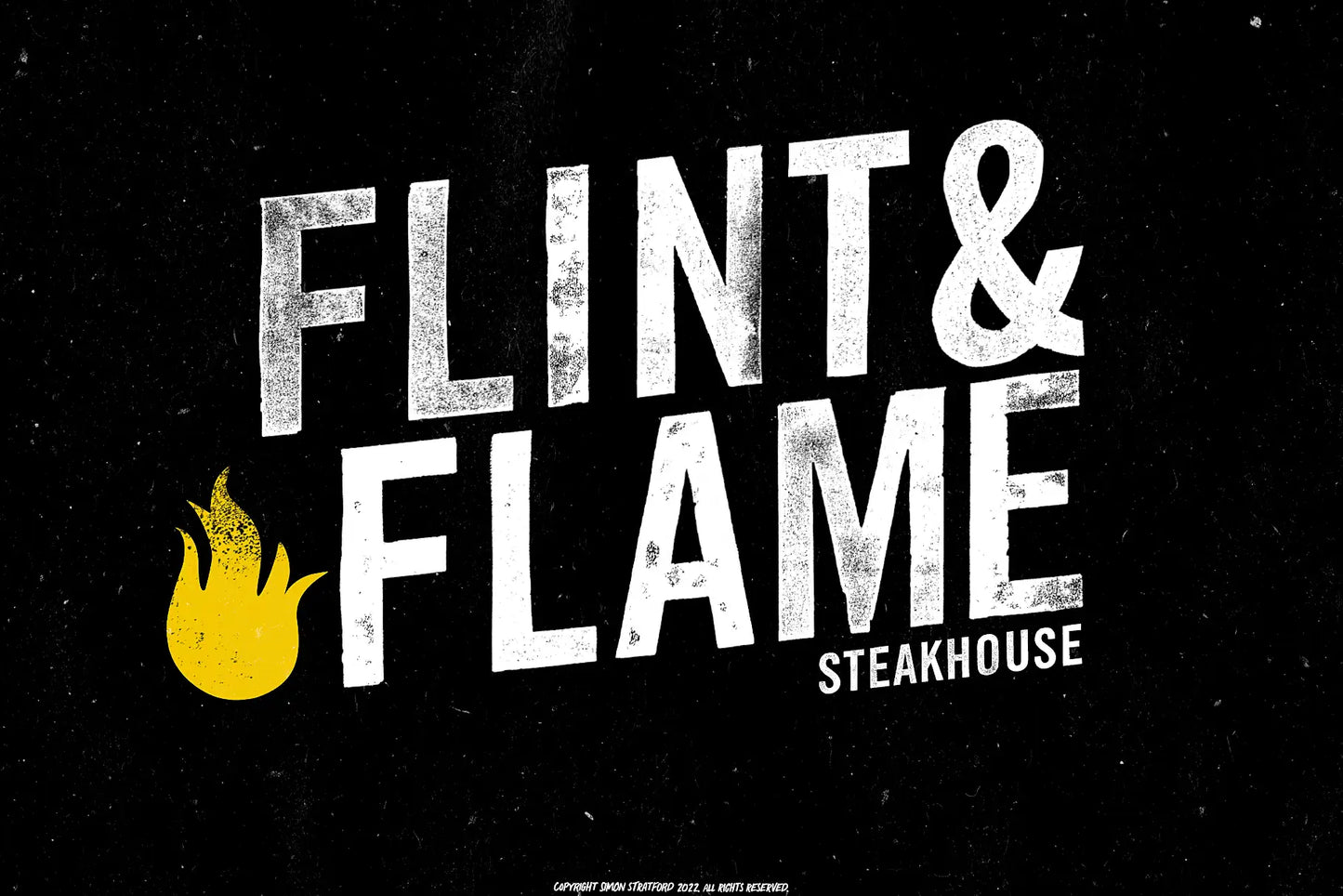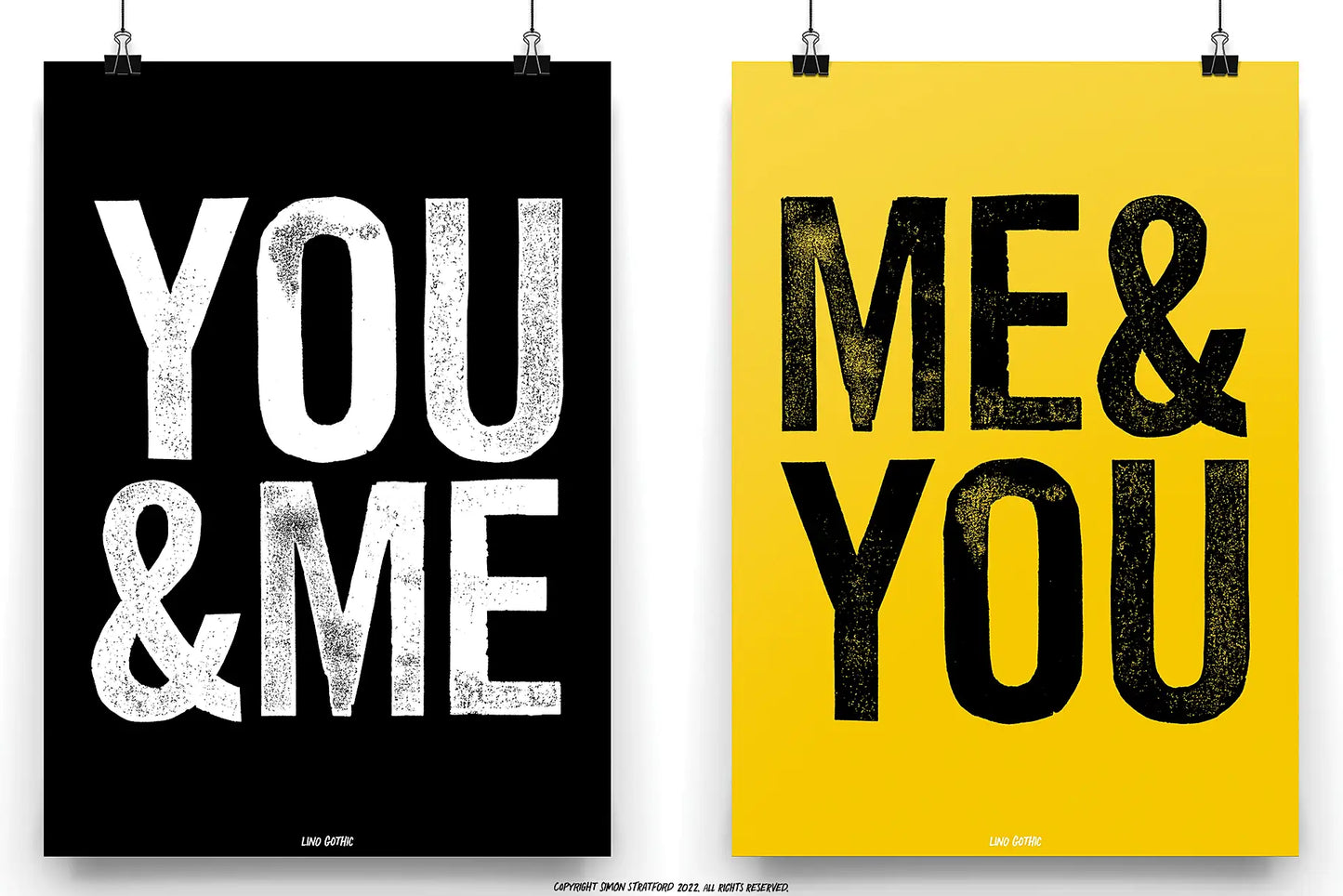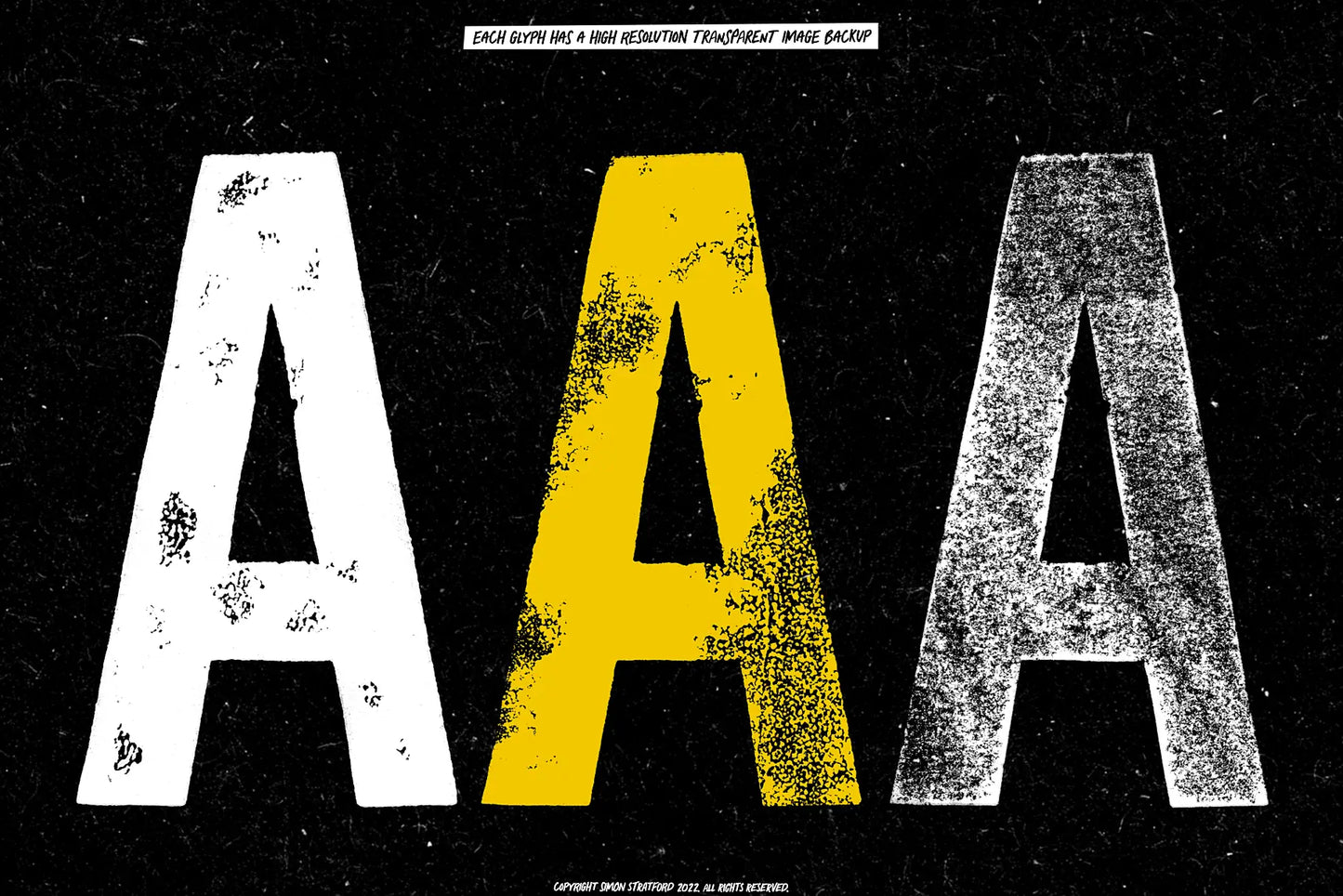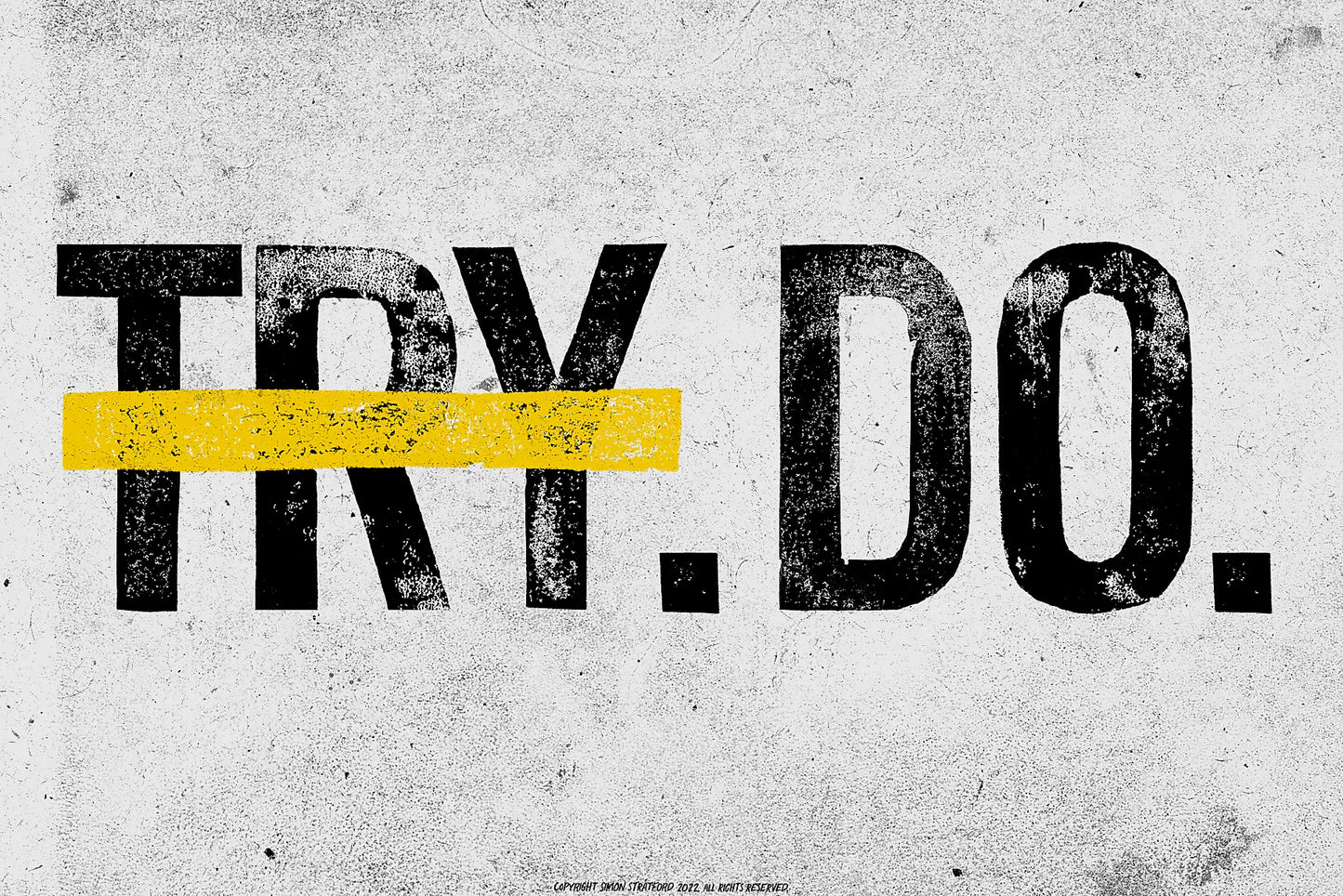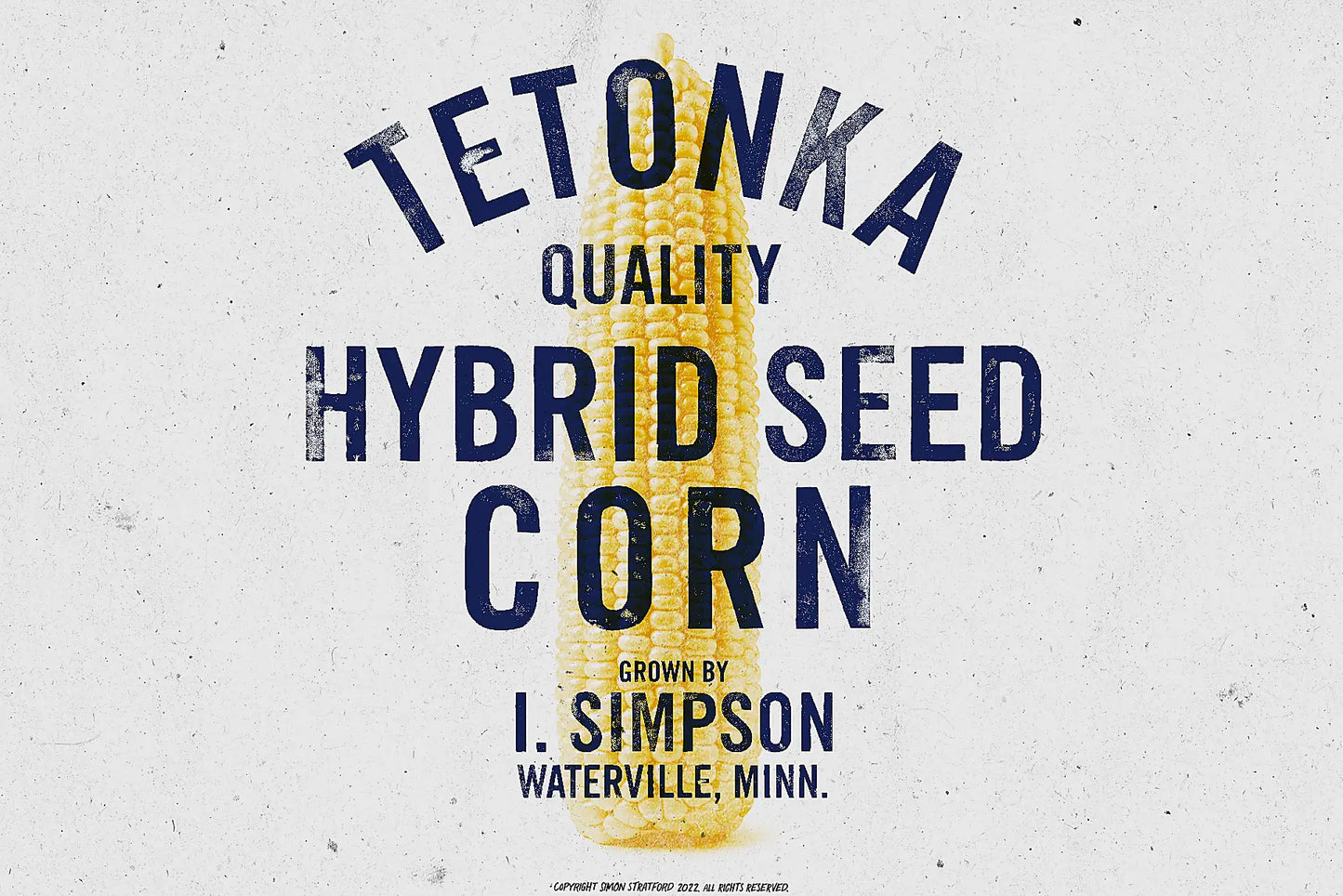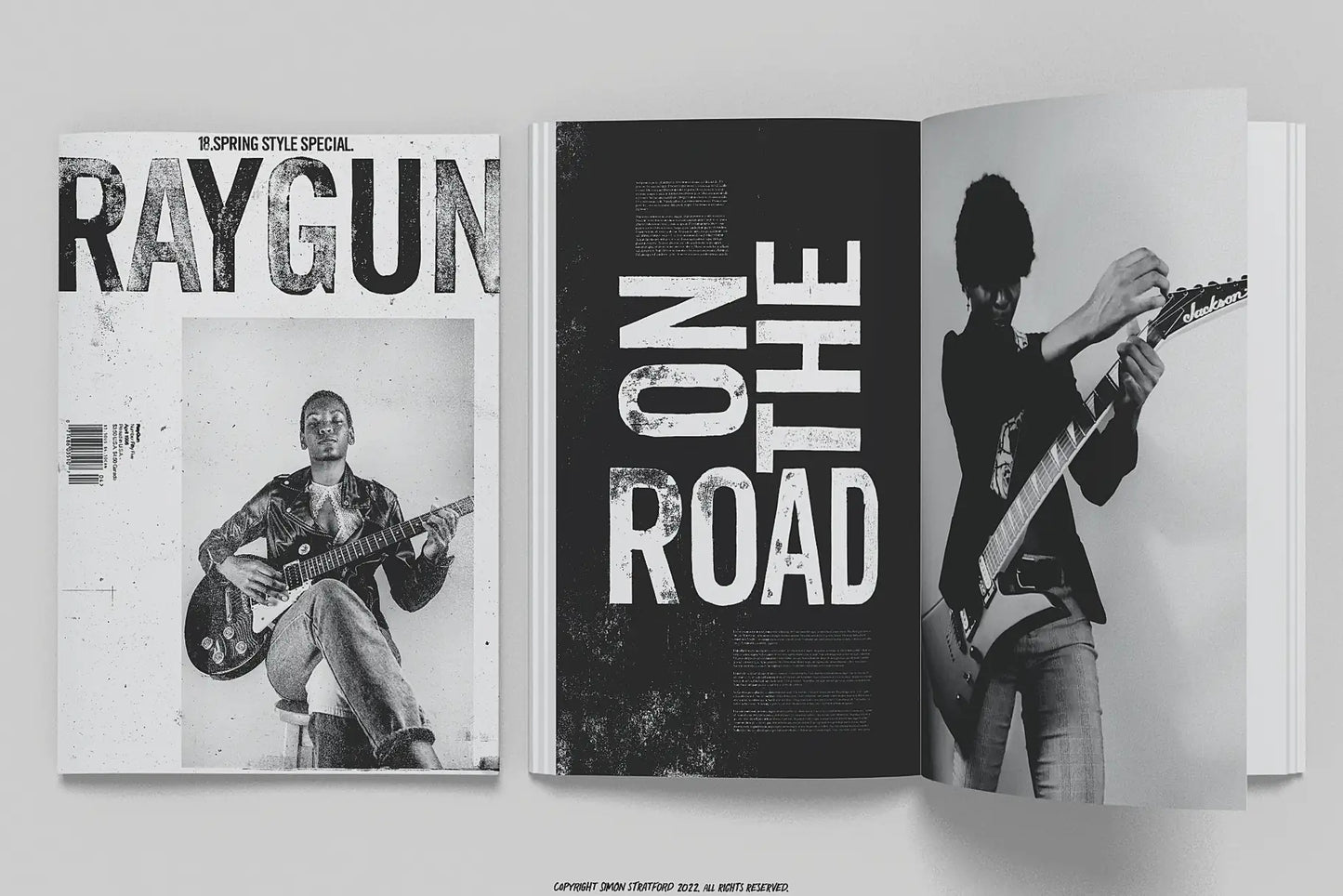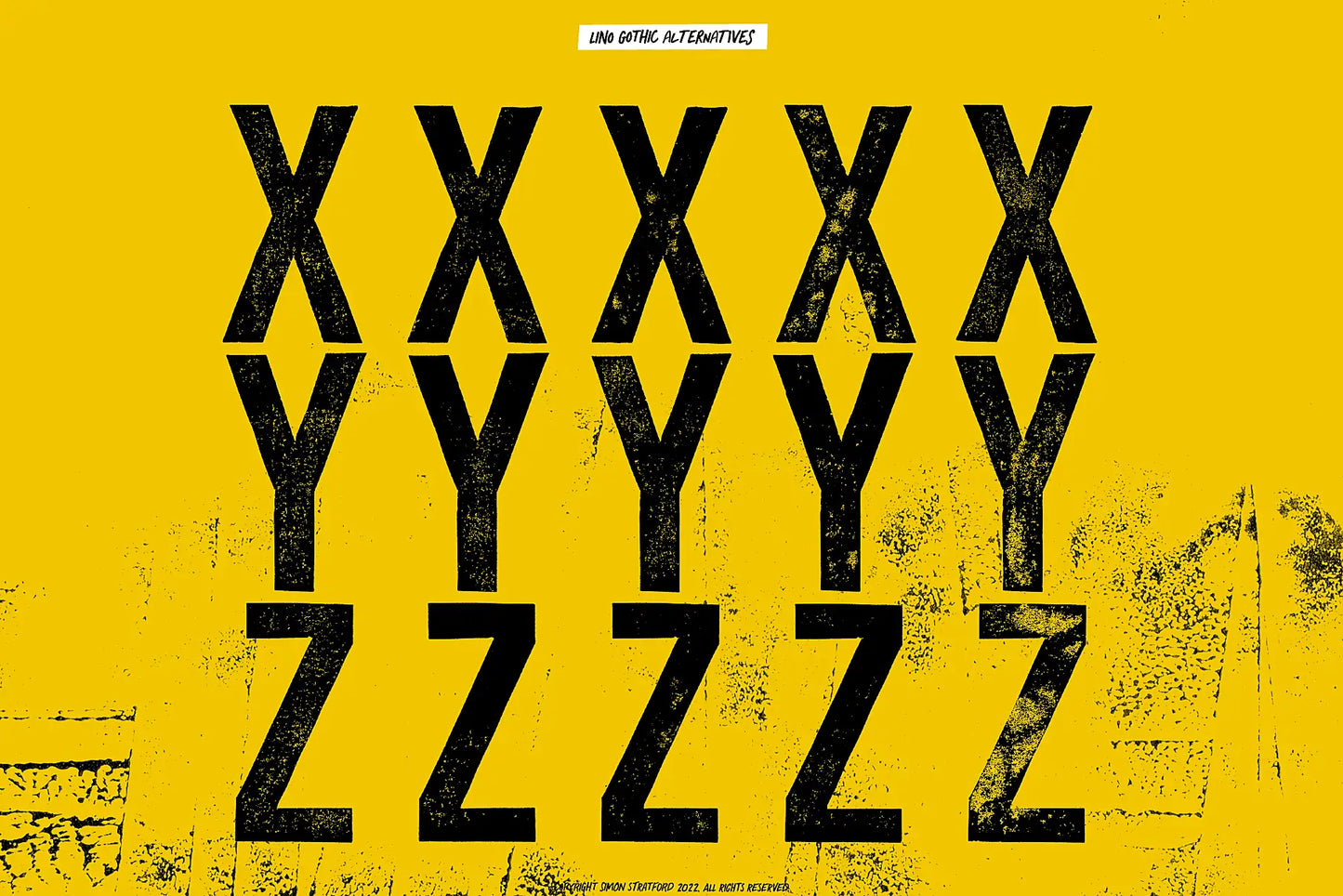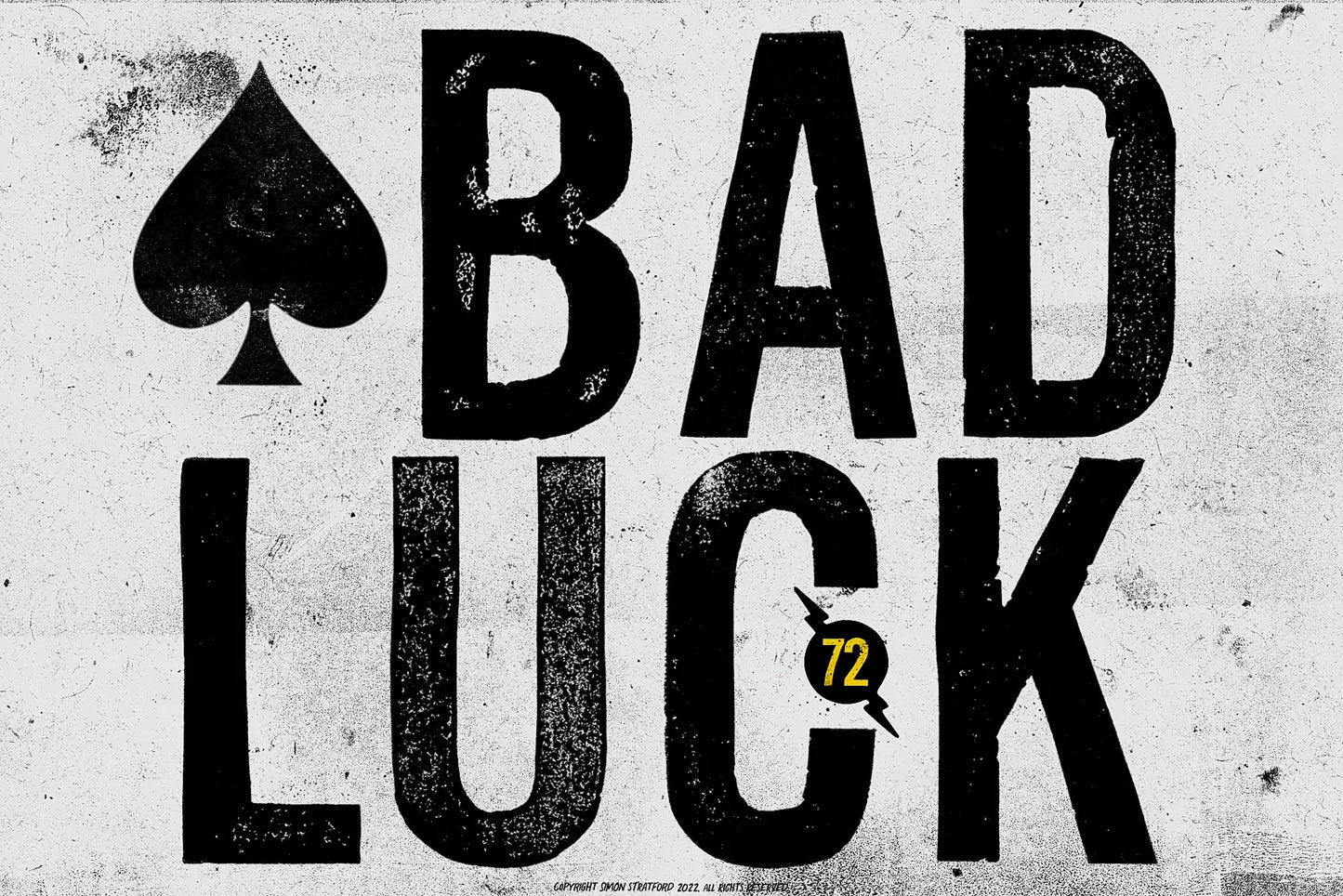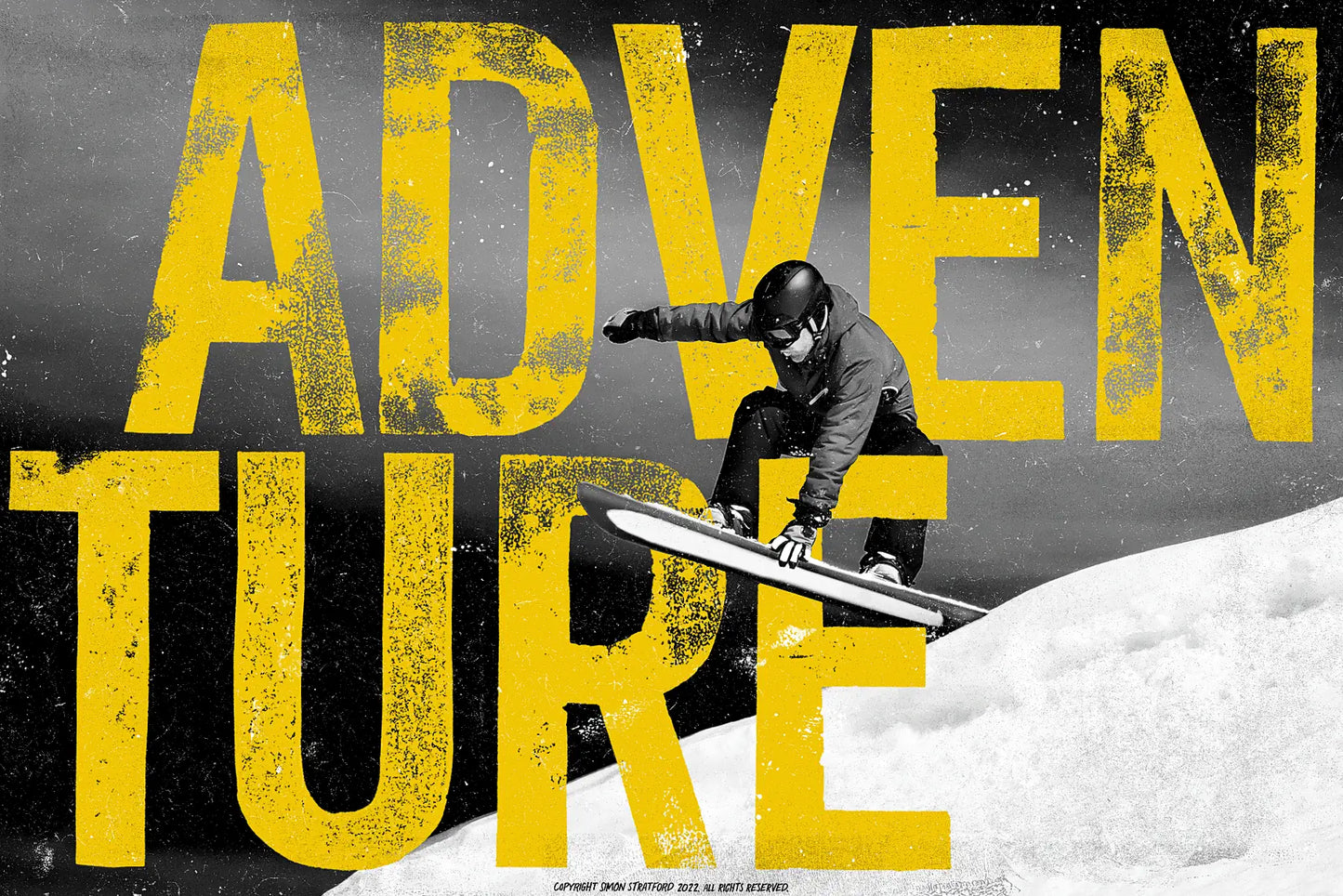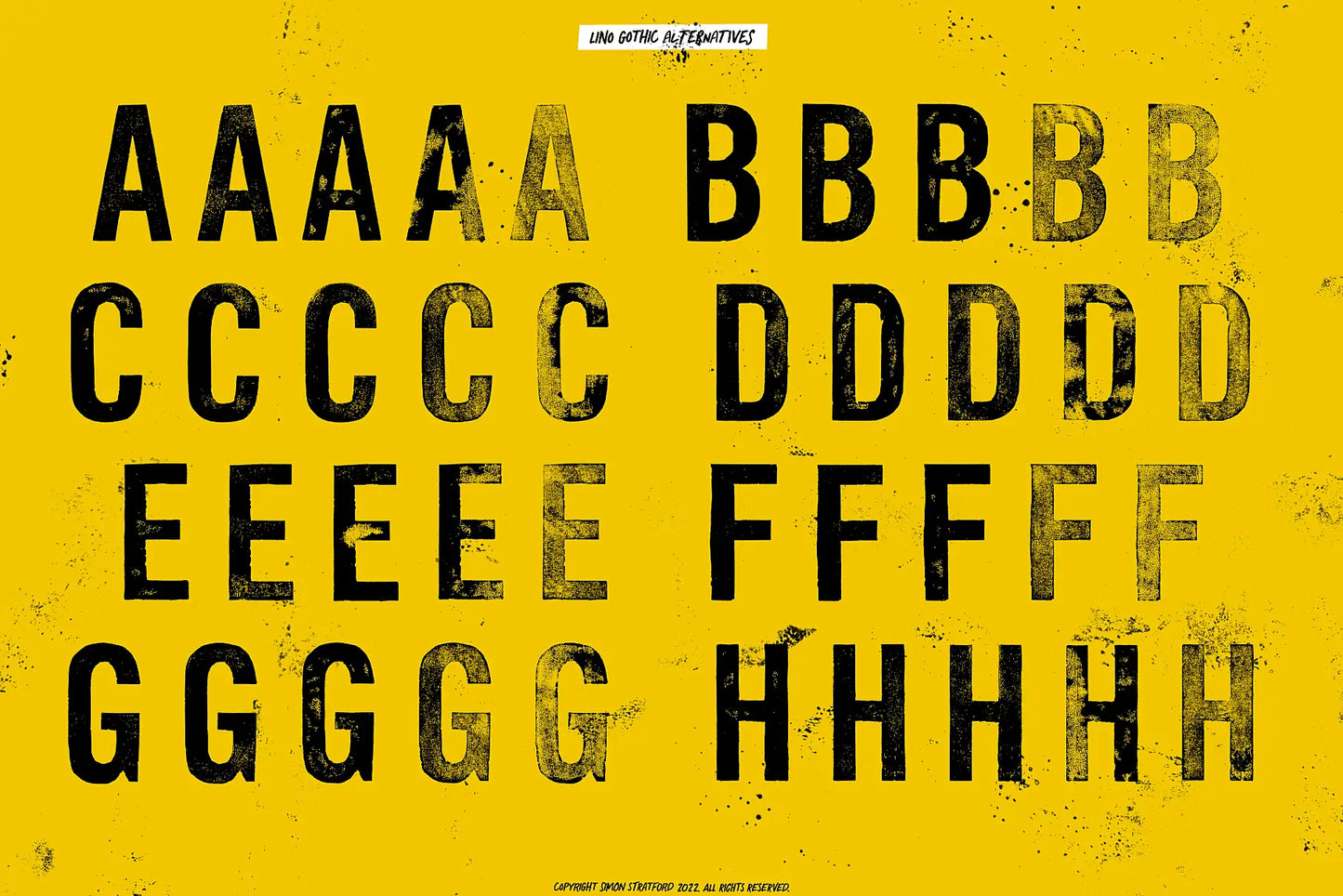
Lino Gothic
About Lino Gothic
Lino Gothic font draws inspiration from the art of linocut printing, where each character is meticulously carved out of linoleum blocks and hand-printed with diminishing ink, resulting in a vintage hand-printed aesthetic.
What sets it apart are its OpenType SVG bitmap features. Each uppercase letter offers five alternatives, each with a unique print texture, allowing you to craft your distinctive style. The level of detail in this typeface is way better than a traditional font, giving your designs an extraordinary level of detail.
Lino Gothic Usage:
Lino Gothic is a bold display typeface ideal for various creative designs. It excels at creating a retro letterpress look, making it suitable for logos, letterheads, headlines, t-shirts, vintage packaging, book covers, and beer labels. If you want a genuine letterpress style, Lino Gothic is the perfect choice.
OpenType SVG Bitmap Font:
Lino Gothic uses OpenType-SVG Bitmap font format, offering full transparency and a multitude of shades of black and grey. This technology provides the font with exceptional detail compared to older font formats—but its cutting edge and you'll need to read the compatibility below.
If the Lino Gothic font were a celebrity, it might resemble Daniel Day-Lewis. With layers of character and versatility, it seamlessly adapts to various design styles, akin to Day-Lewis's deep immersion into his roles.